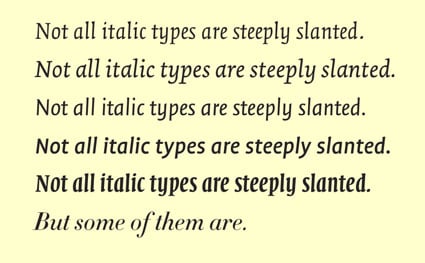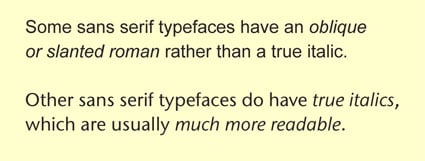
Italics can either help designers communicate or get in the way. Using them correctly separates the pro from the amateur, so read this primer if you don't want to look like a design beginner.
Italic was originally a separate style of writing -- not a complement to roman type, but a different and completely equal style of writing that originated in the papal chancery and other centers of official manuscript production in Renaissance Italy. The first important italic types were created for Aldus Manutius, the innovative printer, publisher, and entrepreneur whose business flourished in Venice around the year 1500. Aldus used these types to produce pocket-sized editions of the classics. Italian humanist scholars were accustomed to reading this style of writing; it was what most of them wrote themselves, at least in formal manuscripts and correspondence. At that point, the initial capital letters in Aldus's books were simply roman small caps, and the rest was "italic" type (it didn't yet have a name).
This all changed remarkably quickly. Only a few decades later, when type foundries and printing had developed in leaps and bounds, someone got the bright idea of using italic and roman type on the same page, to distinguish one kind of text from another. At first, there was no thought of mixing them in the same line -- nobody had yet standardized the sizes of type, so the two styles of type would not have aligned properly with each other (Figure 1). Instead, they were each used in separate blocks of text; for instance, roman for the main text and italic for notes or a translation. Blackletter was also mixed frequently on these polyglot pages.
Figure 1.
By the middle of the 16th century, in France, italic type was used together with roman type in the same block of text, more or less the way we use it today.
Giving Type a Voice
Today, we think of italics as a style of type, rather than as a separate kind of typeface. We use it to set something off from the rest of the sentence or paragraph, to give it emphasis ("I will not go with you!"), and for a number of defined purposes, usually secondary in some way to the main text. Italic is one of the tools, along with space, punctuation, and capital letters, that we use to modulate our written speech.
The fact that italic is usually slanted and more cursive in form than the upright formality of ordinary roman type gives it some of its penchant for emphasis; it has a sort of forward thrust, because of its slant. Yet the slant isn't intrinsically a characteristic of italic; the important distinction is its cursive, handwritten style, including simpler forms of certain letters (a, g) and a greater emphasis on curves (Figure 2). There are italic types that have very little slant at all; there are also "oblique romans" that have nothing but their slanted angles to distinguish them from roman type.
Figure 2.
Are Italics Readable?
Today we think of italic as inherently less easy to read than roman type. This is partly because we're used to reading italic in subsidiary roles, not in long passages. As type designer Zuzana Licko says, "We read best what we read most." (That's not the only factor in readability, but it's a powerful influence.) But it's also because so many of the most common italics are based on 19th-century styles that tend to be rounded, ornate, and somewhat decorative. They were never designed to be read in long passages of text, so naturally they're not well adapted to it. The most readable italics are the old-style, calligraphic italics based on 16th-century humanist handwriting (Figure 3). This calligraphic style may not look much like our ordinary handwriting today, but it's a style that's been revived many times and is easily recognizable, as well as elegant and attractive, so it serves its purpose well. Even if we can't write it, we can read it.
Figure 3.
Using Italics
First, make sure that the type family you're using includes an italic, and that the italic is installed on your system. If you specify italic without having an italic font installed, you'll get only a slanted version of the roman, which looks (and is) amateurish. Every variation within a type family -- italic, bold, condensed, extended semibold italic, whatever -- is a separate font. Having one of them does not guarantee that you have all the rest. Just because an "italic" style shows up on your font menu (especially in Windows) doesn't mean that an italic font is installed on your system.
Some typefaces were never designed to have an italic complement (Figure 4). There are no italic blackletter typefaces, for instance (unless someone has deliberately designed one just to be perverse).
Figure 4.
Italic vs. Oblique
A number of sans serif typefaces were designed to have an "oblique" rather than an italic. Helvetica, for instance, has an oblique rather than an italic. This means that there's little or no stylistic difference between roman and its oblique complementary font; the only distinction is that one is upright, the other slanted. This might be a nice subtle distinction if you just need to italicize a lot of names of books or magazines or television series, but most of the time we want the italics to stand out more (Figure 5).
Figure 5.
More recently, designers have created a lot of humanist sans serif typefaces; their letterforms are based on the forms of traditional serif text faces, rather than on industrial ideals of machine-like function. Their "roman" forms are often much more easily readable than other styles of sans serifs, and they usually include a true italic, based to a greater or lesser degree on Renaissance italic calligraphy. Lucida Sans was one of the first sans serif typefaces to do this, in the early days of digital typesetting. (Gill Sans predates Lucida by several decades, but its italic is quirky and only partly humanist in form.) Today, Lucida Sans has a host of sisters and brothers, including ITC Stone Sans, FF Meta, FF Profile, Thesis Sans ("TheSans"), FF Scala Sans, FF Quadraat Sans, Bliss, and Myriad. All of these typeface families have italics that stand out from the roman and also work well on their own, in longer blocks of italic text.
What happens when you're using an italic font for a passage of text and you run into something that would ordinarily be italicized, such as a book title? The common practice is to reverse the process: instead of italicizing that title, set it in roman, since the rest of the text is italic. But that can look clunky, depending on the typeface. If the bit that needs to be set apart visually isn't long, I instead use small caps (without initial full caps). This too depends on the typeface, but it often works surprisingly well (Figure 6).